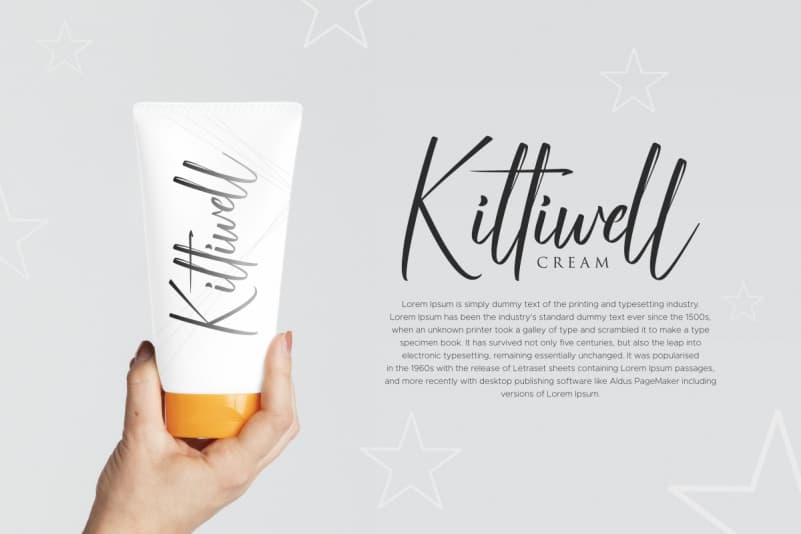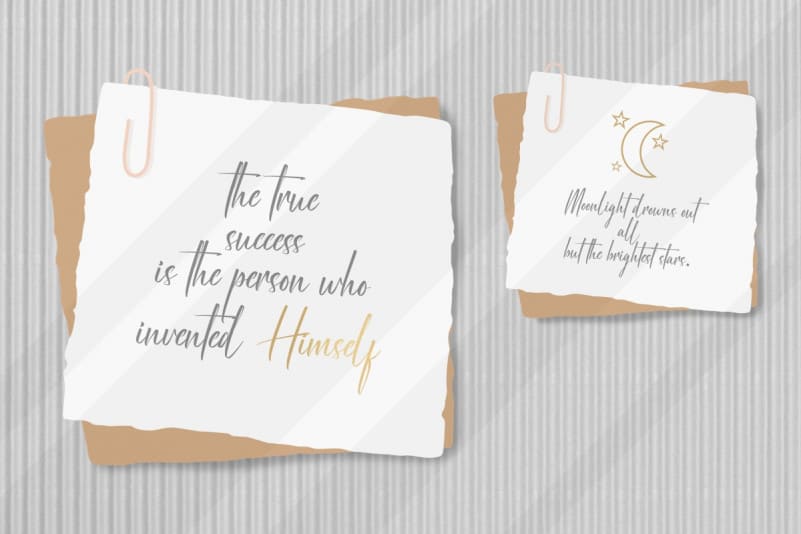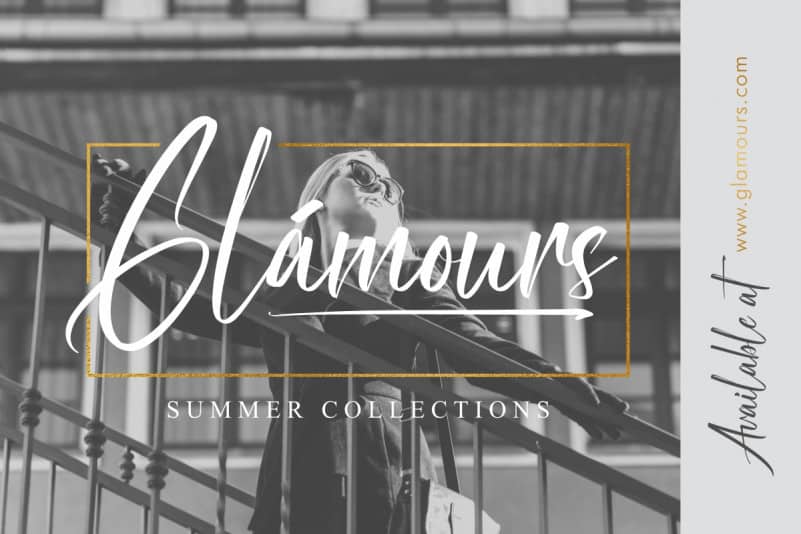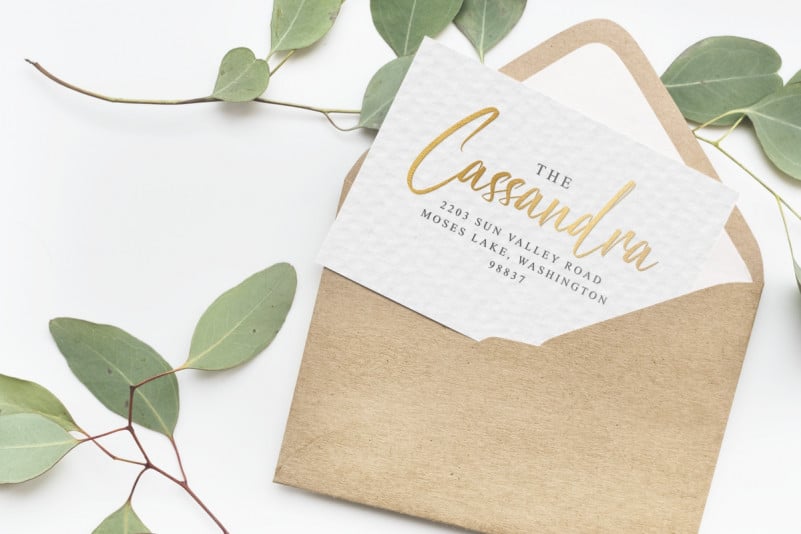
Uniondale Script Font
Uniondale Script Font is a handmade calligraphy font which is combining modern and classic typography with elegant look. This font is crafted carefully in every its single letter so we can make sure it has great looking, personal touch and This one should make your designs instantly professional and jaw-dropping!
Uniondale Script Font includes full set of Uppercase and Lowercase Basic Characters, Numerals and Punctuation. Also it contains ligatures to make it flowless and two styles set font characters to perfectly make awesome look that add more aesthetic fonts to perfect your extraordinary project.